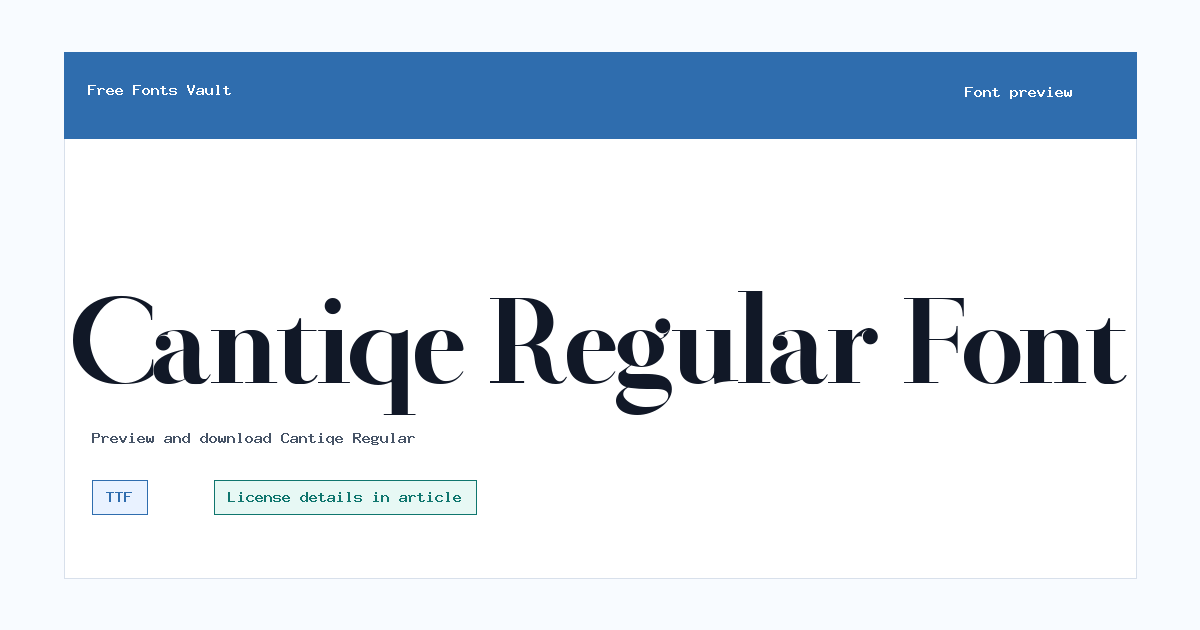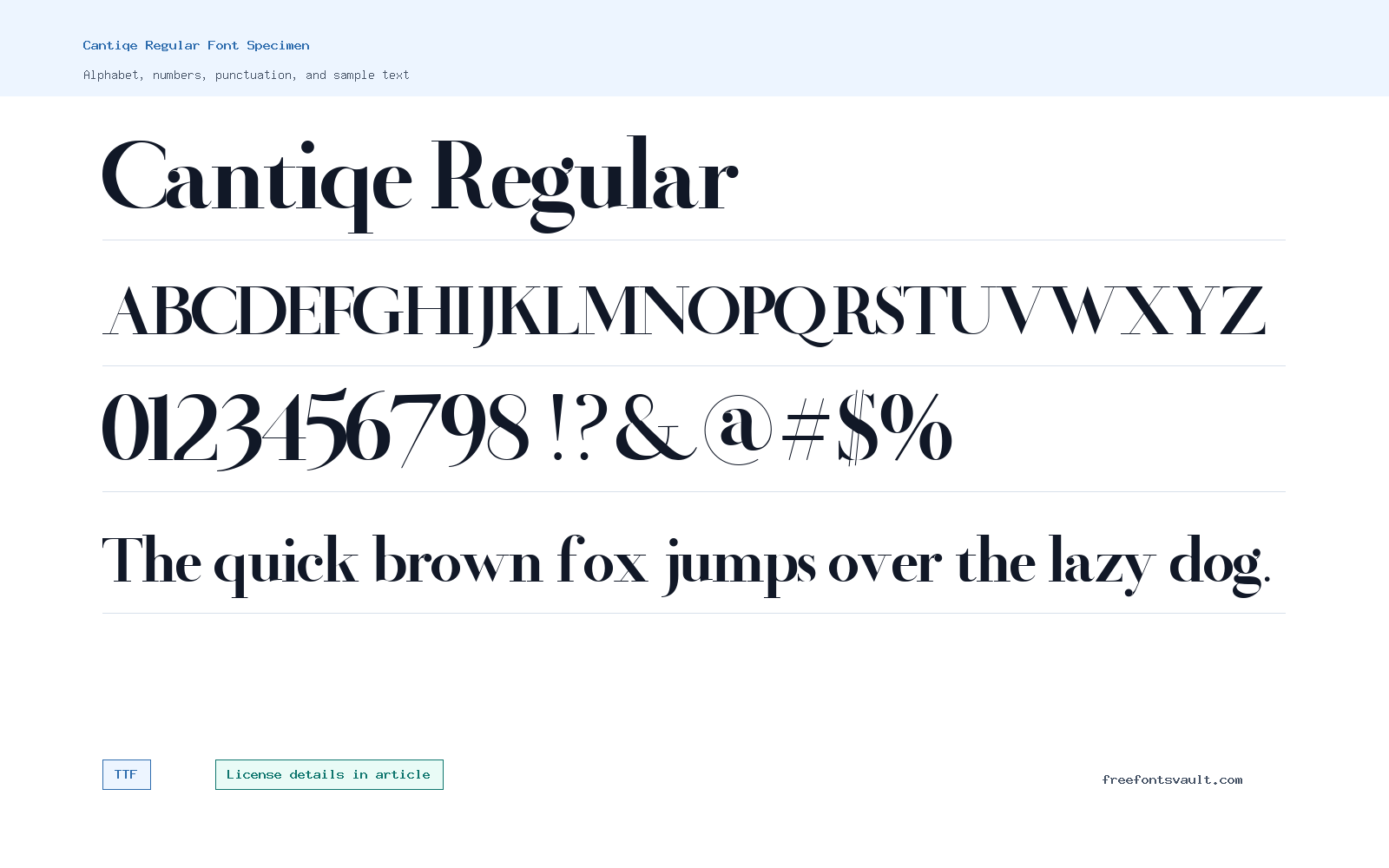
Cantiqe Regular
- Designer @faldykudo
- Foundry xD
Cantiqe Regular is a serif font with a refined display feel, shaped by high contrast, fine hairlines, and rounded terminal details. It works best when you need a polished serif voice for short, carefully set text.
Cantiqe Regular has the look of a modern editorial serif: upright, balanced, and more suited to titles than long body copy. Source references describe Cantiqe as a rational serif with circular or ball terminals, strong vertical contrast, and delicate horizontal strokes. Those traits make it useful for previewing fashion-style headings, magazine-inspired layouts, packaging names, and elegant brand mockups.
Cantiqe is strongest when the layout gives its contrast room to show. Leave enough whitespace around the wordmark or heading, and compare dark text on a light background with light text on a dark background before choosing the final treatment. That small test helps reveal whether the thin strokes stay crisp.
- High-contrast serif appearance with rounded terminal details
- Editorial-style titles, magazine headers, and cover mockups
- Beauty, fashion, packaging, and refined branding concepts
Cantiqe Regular is credited to @faldykudo, with xD listed as the foundry/company in the available font details. The linked Behance profile identifies Faldy Kudo as a graphic and type designer.
Use Cantiqe Regular for short text where the contrast can be appreciated. Pair it with a simple sans serif for body copy, keep letter spacing modest, and avoid using it for small paragraphs unless your preview shows the hairlines remain readable.
What kind of font is Cantiqe Regular?
It is a serif font with high contrast and refined terminal details, best suited to display text such as titles, names, and branding samples.
Who designed Cantiqe Regular?
The font is credited to @faldykudo. The linked Behance profile uses the name Faldy Kudo.
Can I use Cantiqe Regular for body text?
It may work for short blocks at larger sizes, but its fine strokes are better for headings and display use. Test readability in the preview before using it for paragraphs.